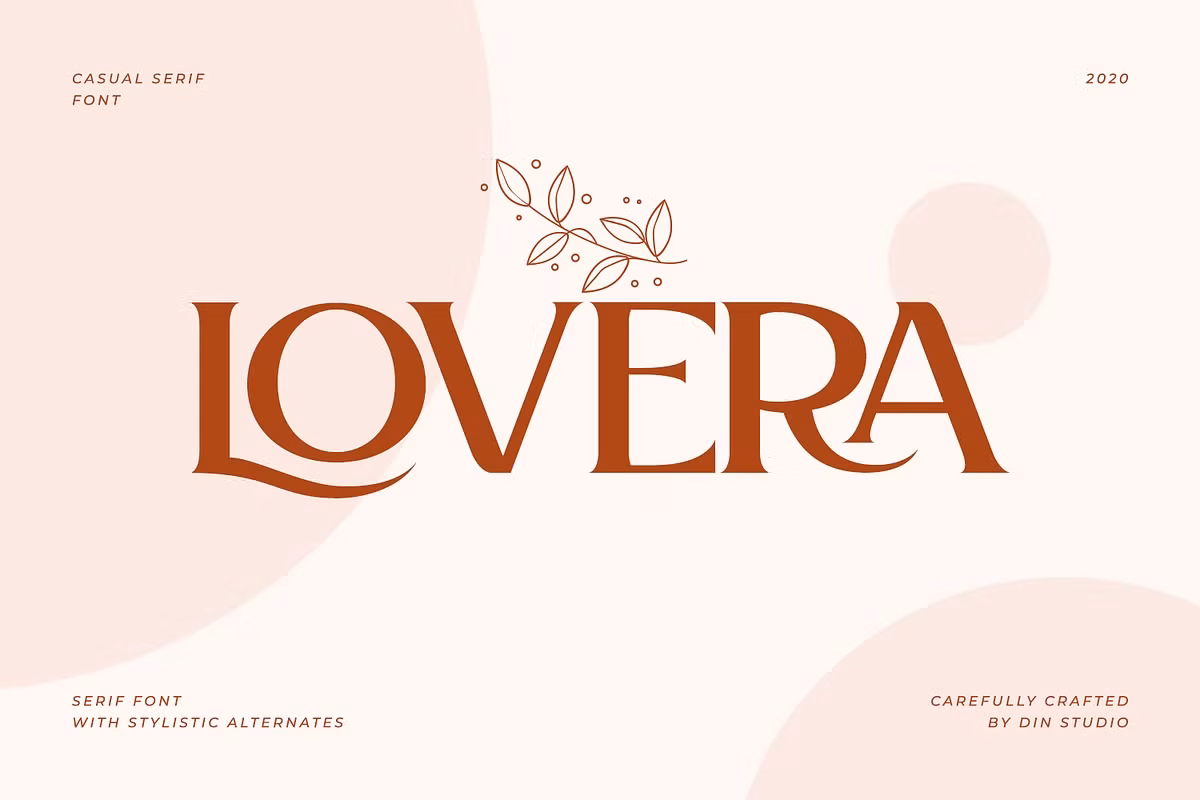
Lovera – Elegant Serif Font Free Download
You must purchase this font for commercial use. However, you can download Lovera – Elegant Serif Font Free Download for testing purposes. Lovera is a sophisticated serif typeface that blends timeless elegance with a clean, modern design—perfect for luxury branding, editorial layouts, fashion lookbooks, wedding invitations, and high-end product packaging.
With graceful curves, balanced contrast, and refined detailing, Lovera brings a sense of class and professionalism to any design. Its elegant letterforms work beautifully in both large display settings and smaller body text, offering versatility across print and digital projects. The font also includes stylish alternates and ligatures, allowing for custom and expressive typography. Lovera – Elegant Serif Font Free Download gives you the chance to explore its visual impact and versatility before using it commercially. Be sure to acquire the appropriate license for any client or business-related use. Download Lovera – Elegant Serif Font Free Download today and bring luxurious beauty to your next creative project.